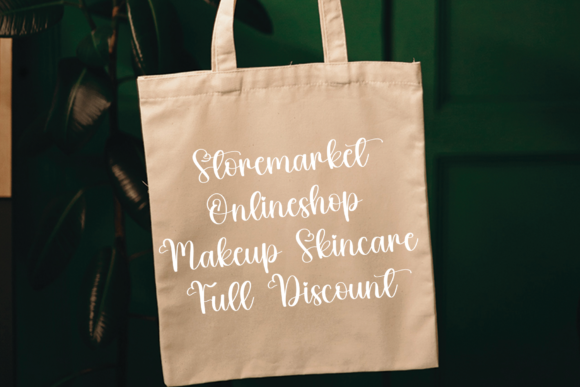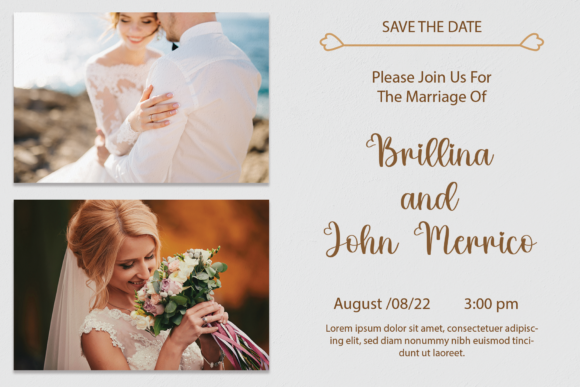
Vacation Valentine Font
db-ku.com - Script & Handwritten -- Vacation Valentine is a romantic and sweet calligraphy typeface with characters that dance along the baseline. It will add a luxury spark to any design project that you wish to create!